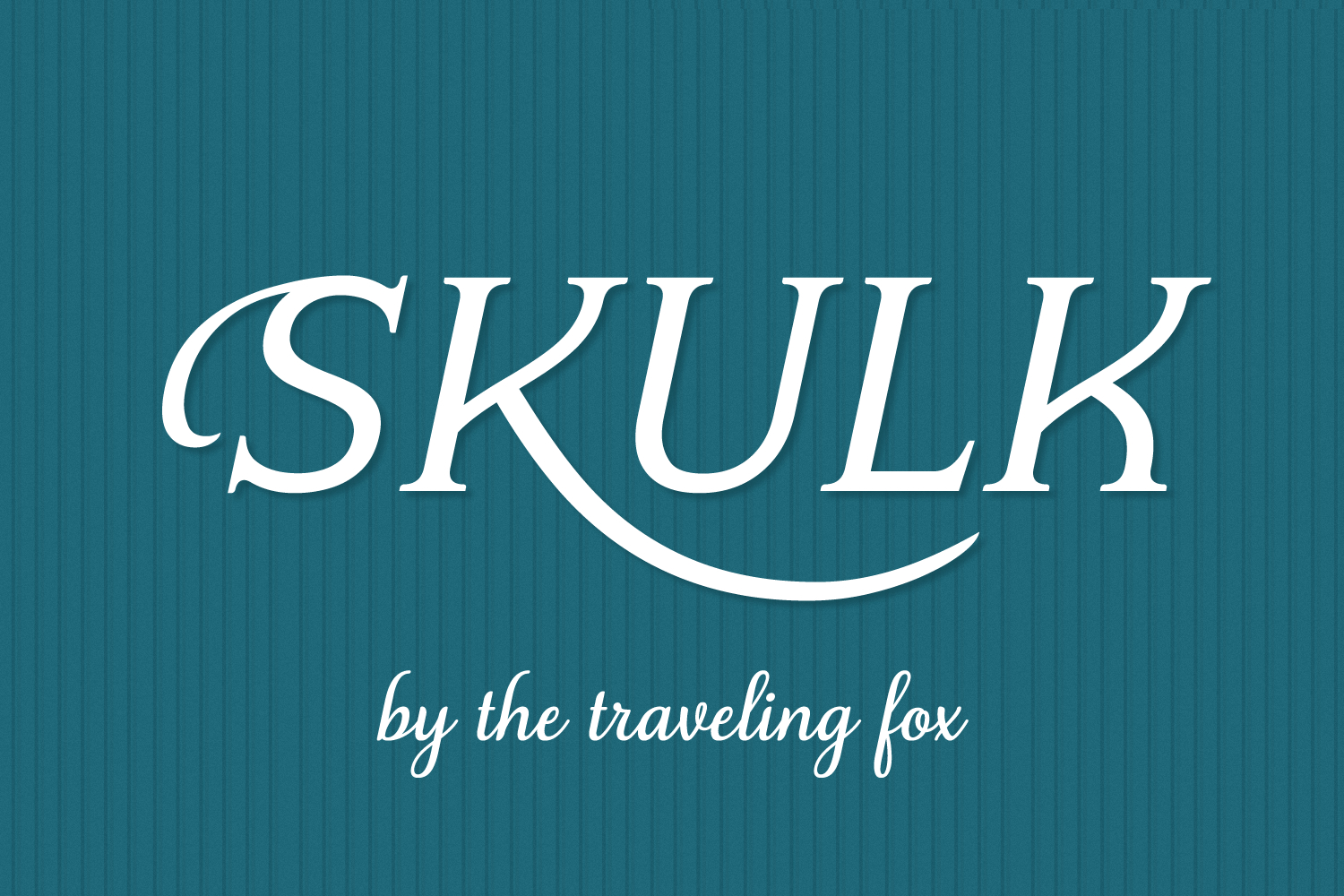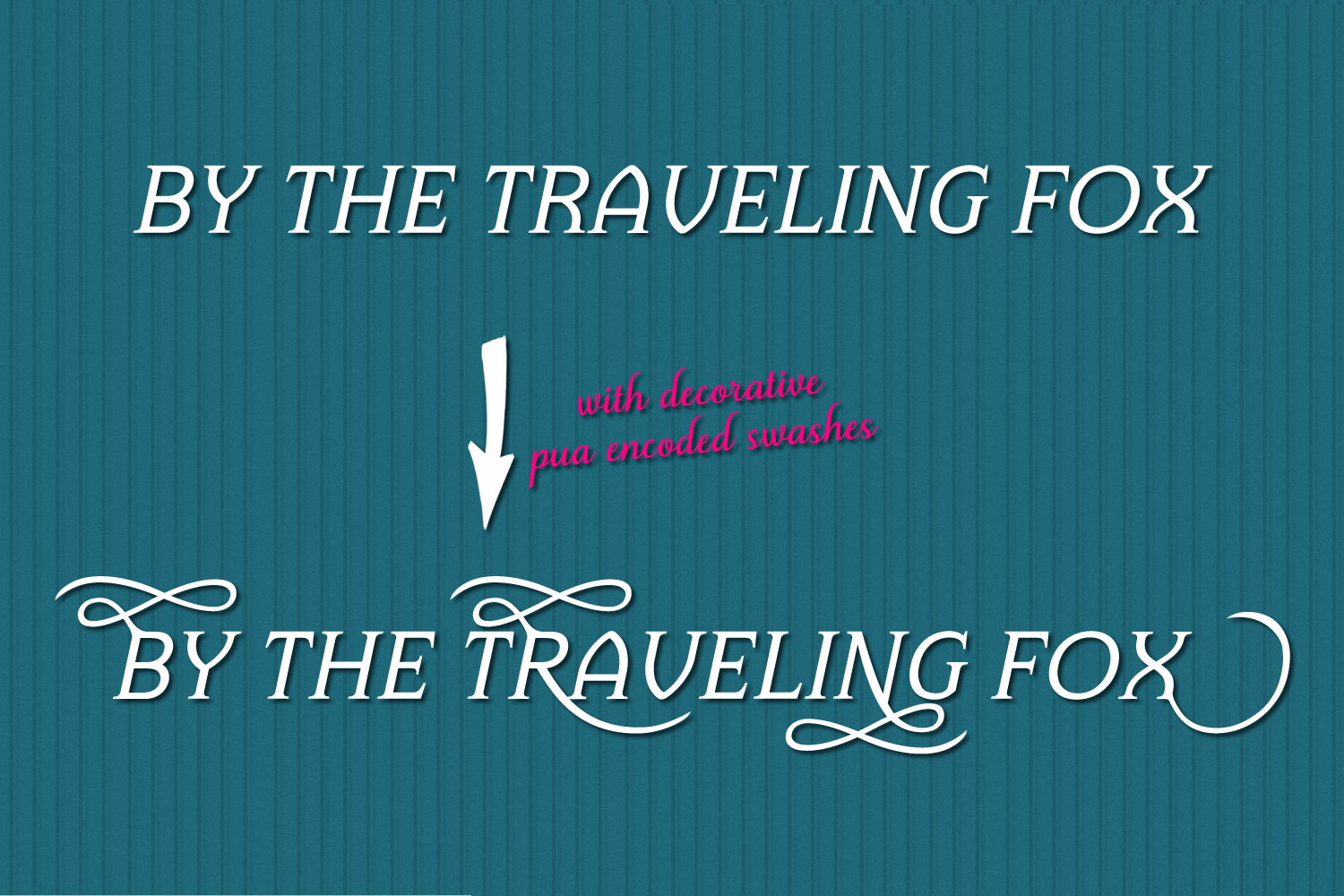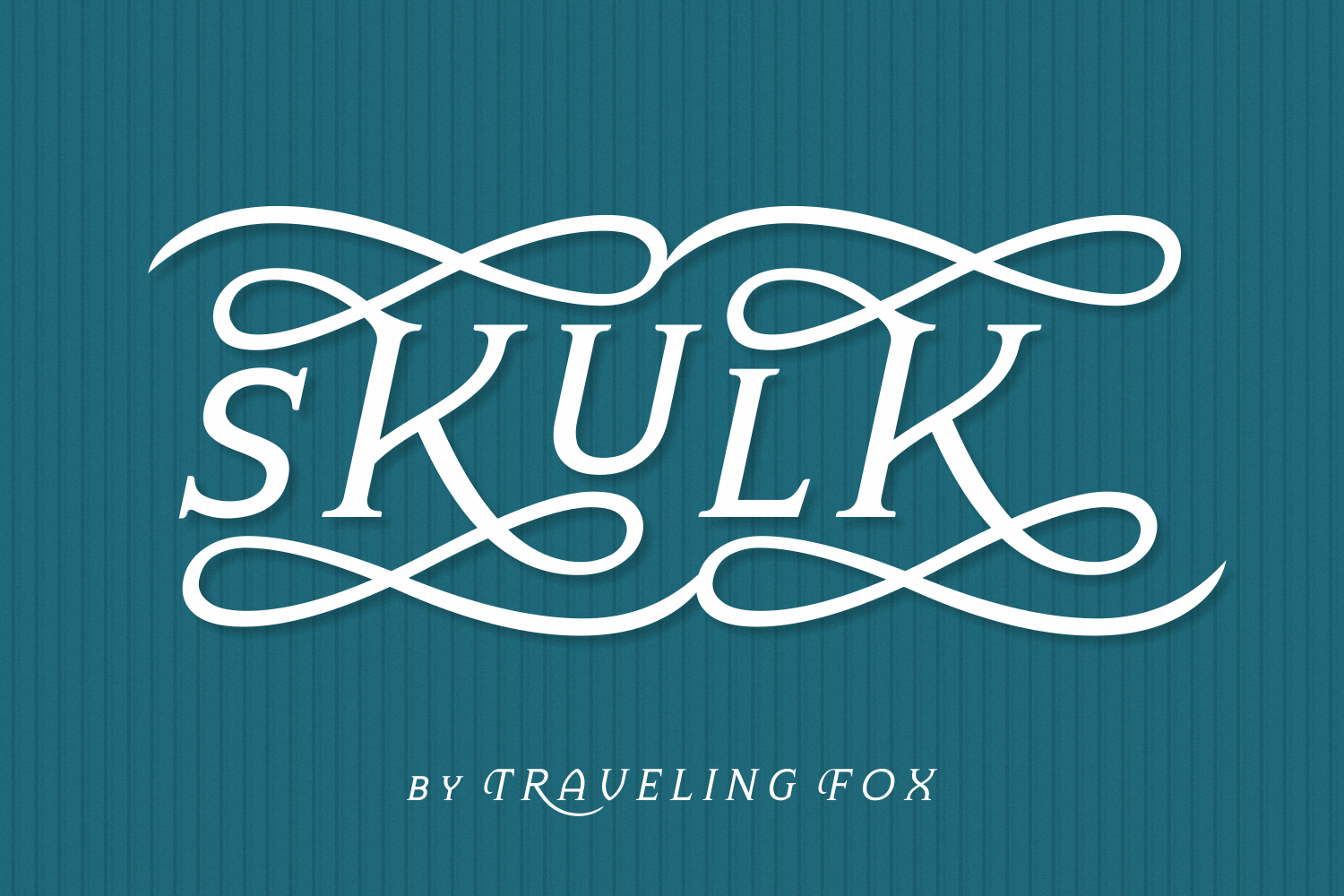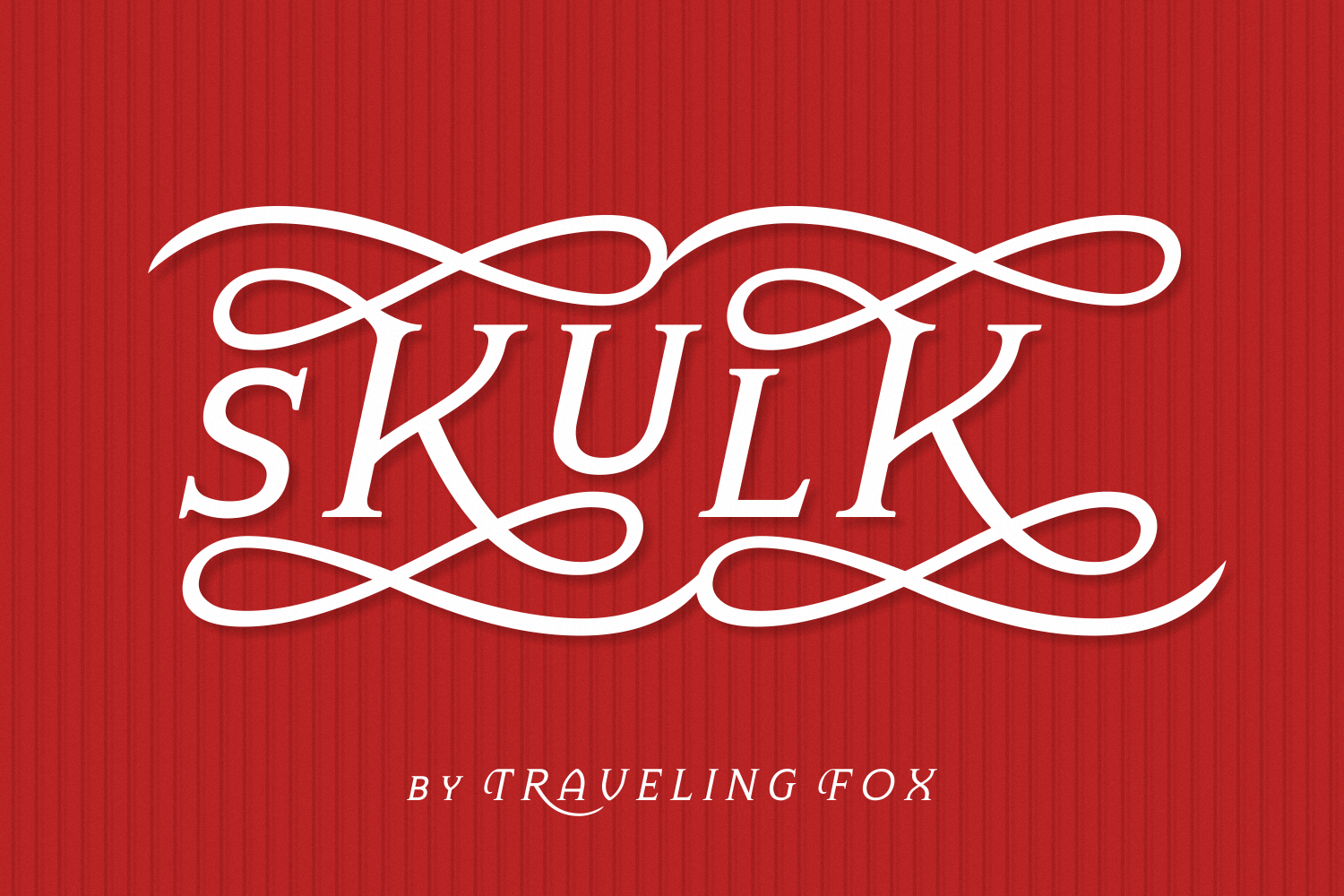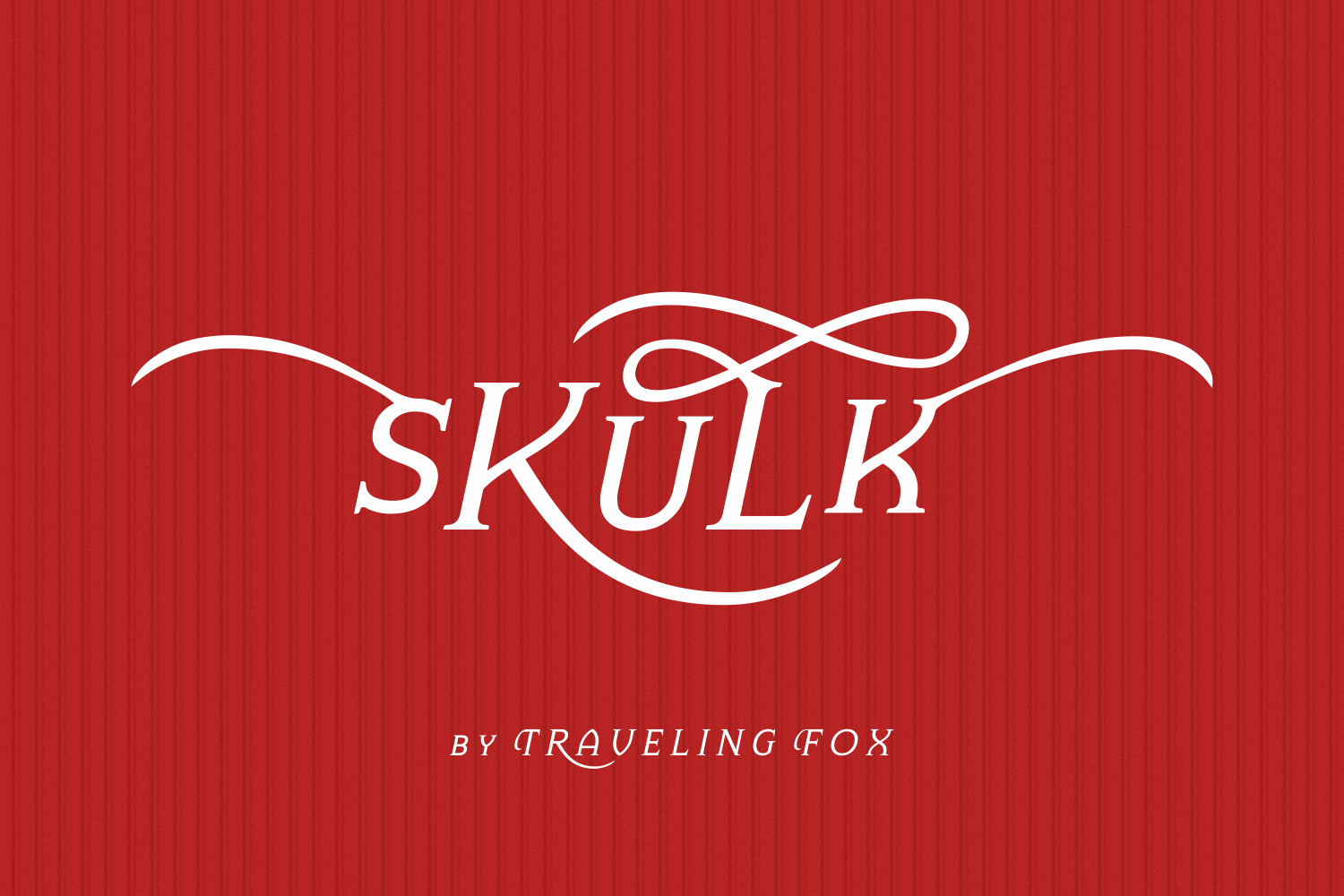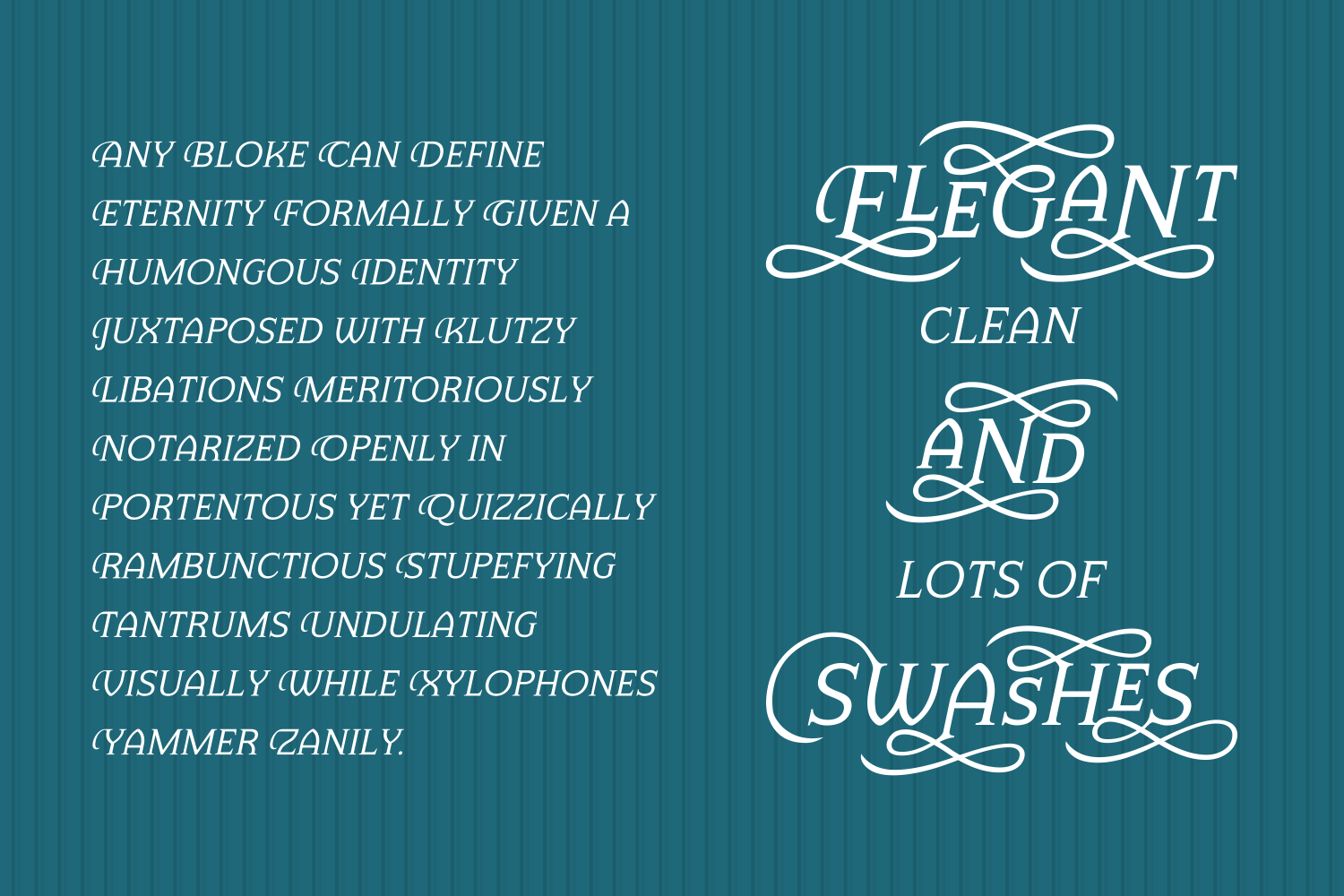
Introduction to Skulk Font
Have you ever stared at a blank page, eager to unleash your creativity, but struggled to find the perfect font to bring your vision to life? This is a familiar scenario for many designers, and it’s precisely why the Skulk Font is a game-changer. With its unique blend of high-quality all-caps serifs and stunning decorative swashes, you can transform your text into a stunning visual masterpiece.
Whether you’re working on a creative project, designing a logo, or simply want to add some flair to your typography, the Skulk Font is an invaluable design resource. And the best part? It’s available for free download, making it accessible to designers of all levels. Plus, with its transparent background, you can easily layer it over other design elements to create a seamless and cohesive look.
Key Features of Skulk Font
- High-quality, professional font designed for creative projects, available as a free download.
- Unique, bold design with a transparent background, ideal for use on various design elements.
- Perfect for use in logos, icons, graphics, and other design elements where a distinctive, high-quality font is needed.
- Easy to customize and edit, thanks to its vector format, allowing for precise control over the design.
Honest Review: Skulk Font
I recently stumbled upon the Skulk Font while searching for a unique design resource to add some edge to my creative project. Initially, I was blown away by its high quality and the fact that it’s available for a free download.
- What works well: ✨ The font’s bold and modern design makes it perfect for titles, headings, and any other element that requires attention-grabbing text.
- What works well: ✨ The transparent background allows for seamless integration with any background image or color, giving you complete design flexibility.
However, I did encounter a few limitations with the Skulk Font. ⚠️ One of the major drawbacks is that it’s not suitable for body text due to its bold and condensed nature. Additionally, the font might not be compatible with older versions of certain software.
Overall, I’m impressed with the Skulk Font and its potential to elevate any design project. While it may have some limitations, its unique design and high quality make it a valuable addition to any designer’s toolkit. Whether you’re working on a personal project or a commercial design, the Skulk Font is definitely worth considering.
For the best results, use the Skulk Font with a transparent background to create a seamless design. Experiment with different font sizes, colors, and styles to add depth and interest to your project.
Common Use Cases for the Skulk Font
The Skulk Font is perfect for a variety of creative projects, including logos, brochures, business cards, and social media graphics. Its unique design and high-quality resolution make it an excellent choice for any design